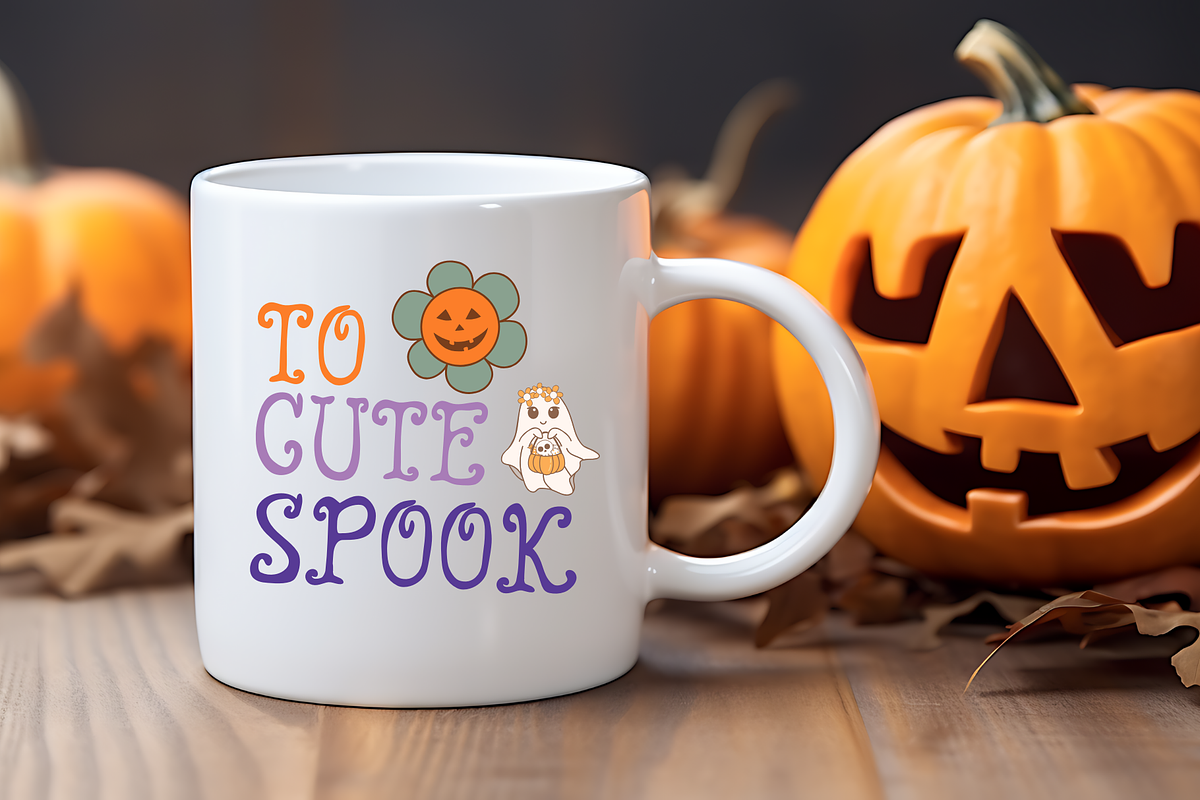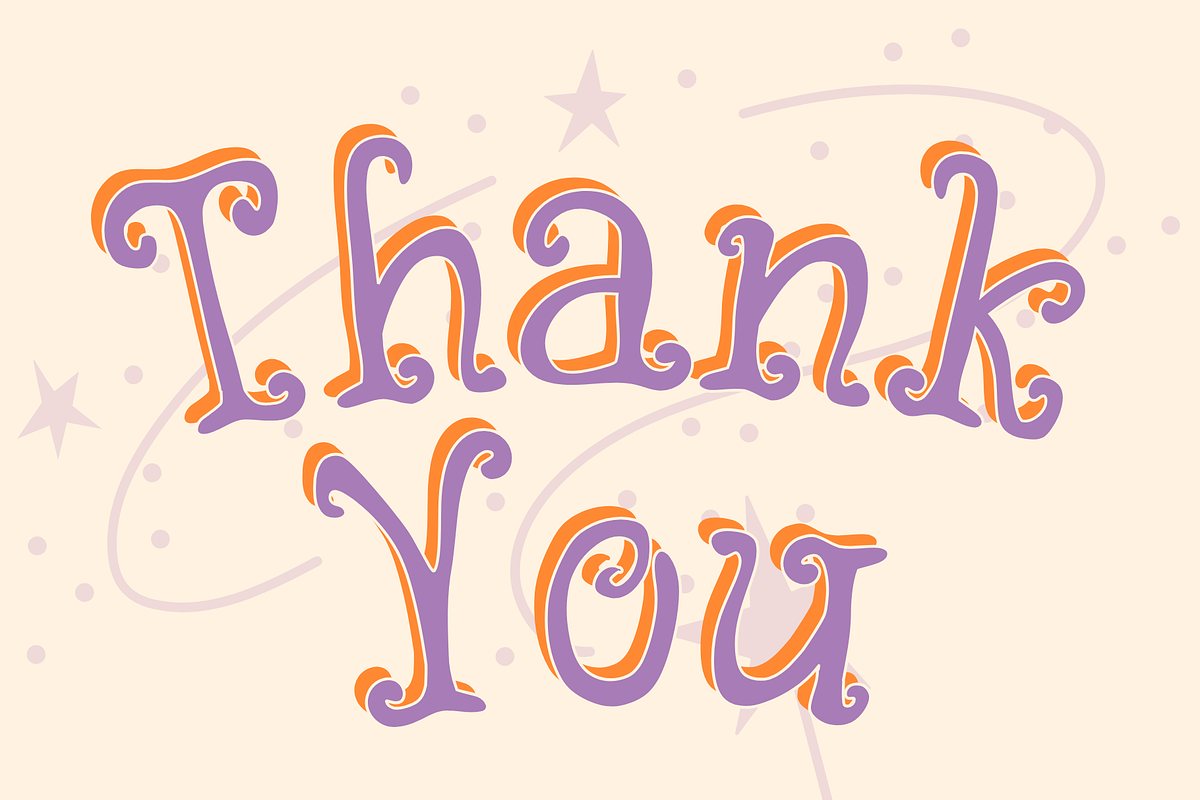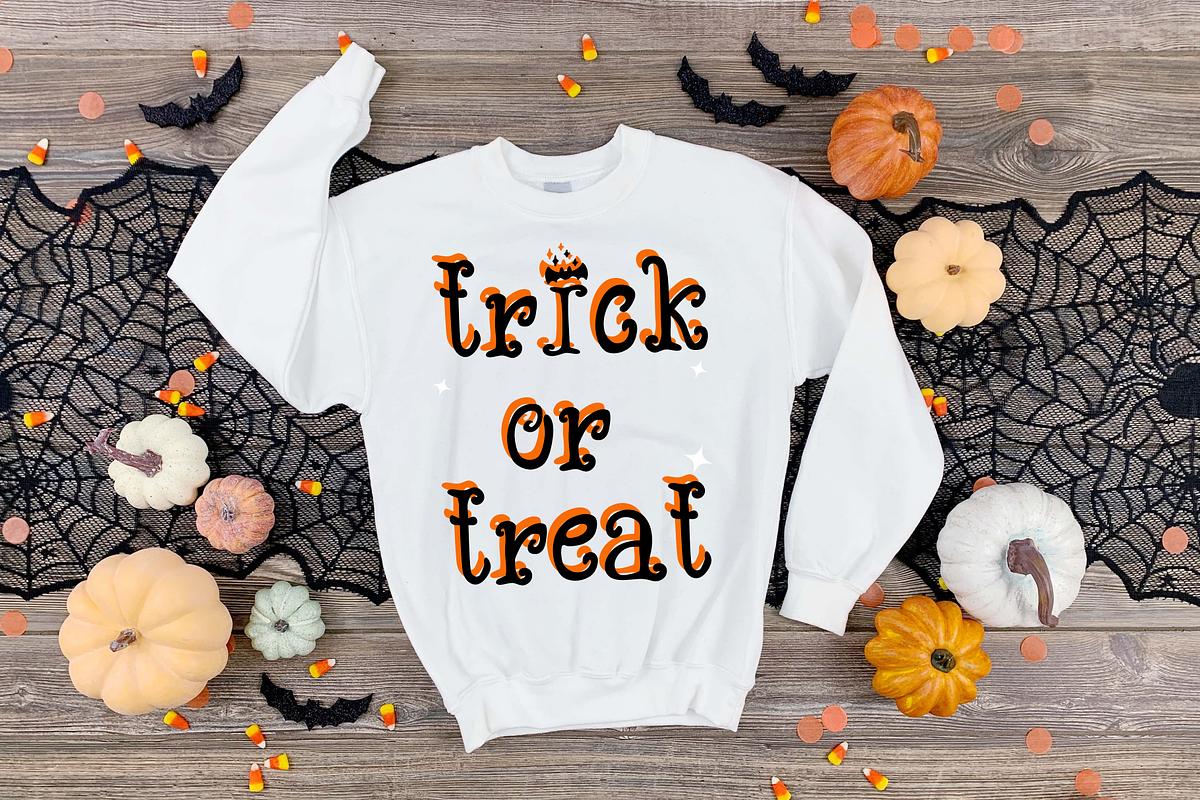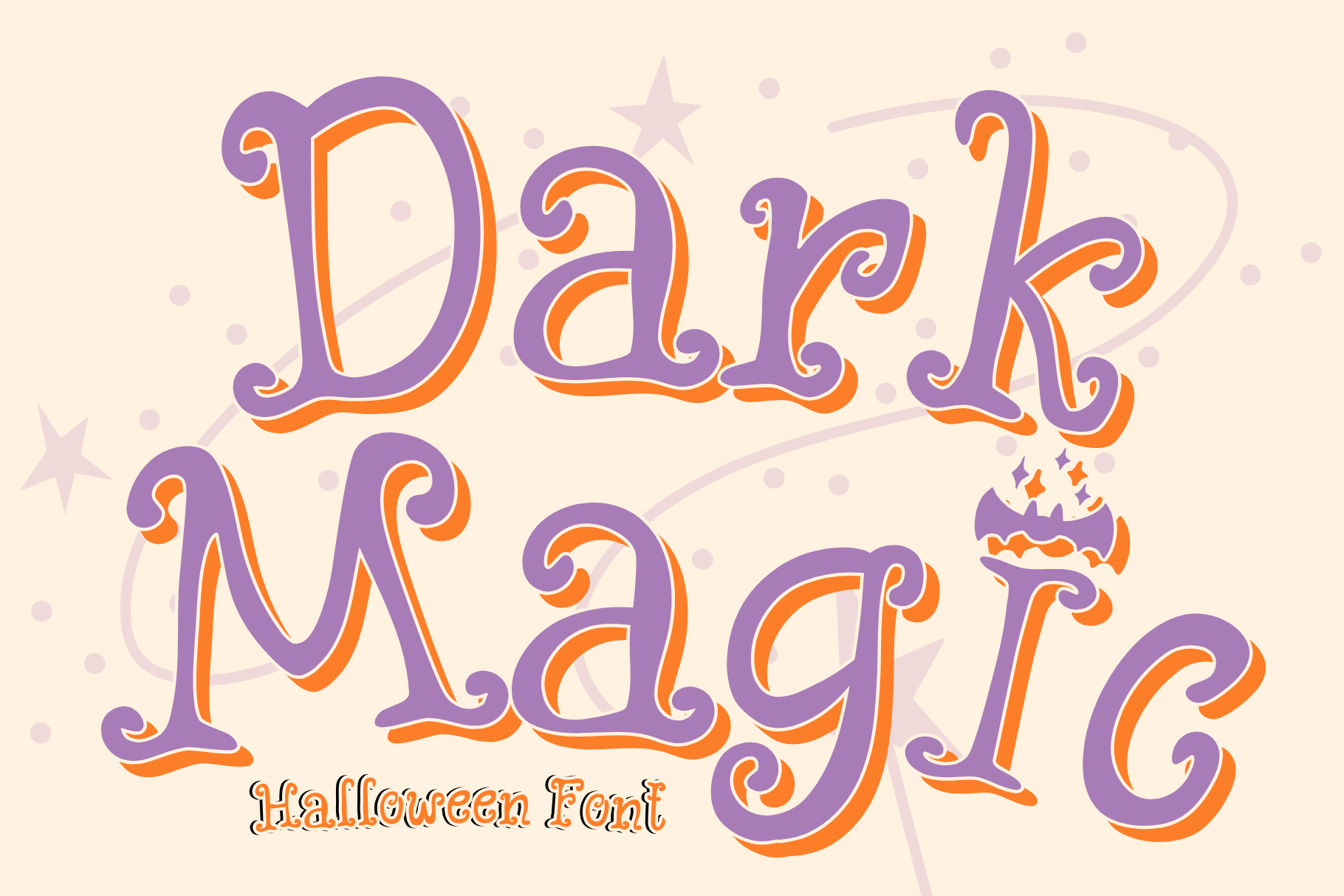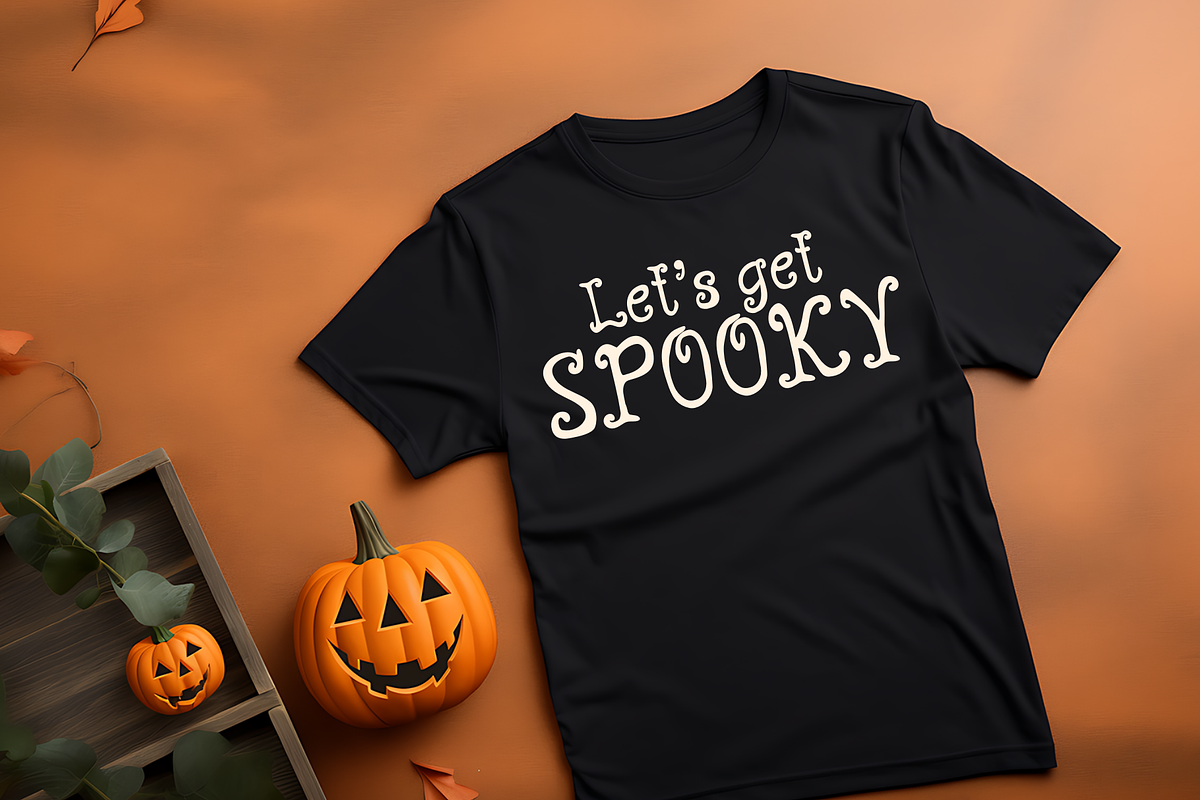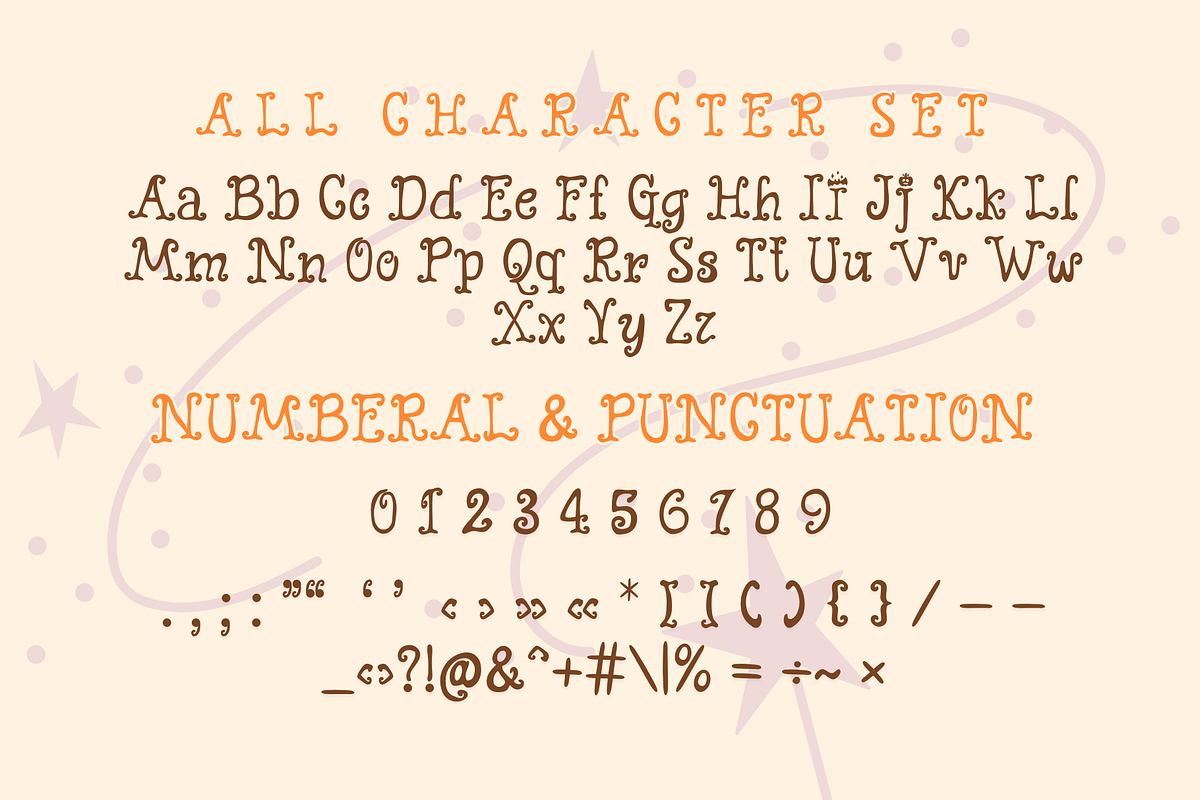
Dark Magic is a Halloween font
Dark Magic is a Halloween decorative font. It embodies playfulness and authenticity and is the perfect choice for all your favorite projects such as blog posts, logos, branding, ads, invitations, greeting cards, planners, photo albums, decorations, and more. Add it to any of your designs, and enjoy the results!